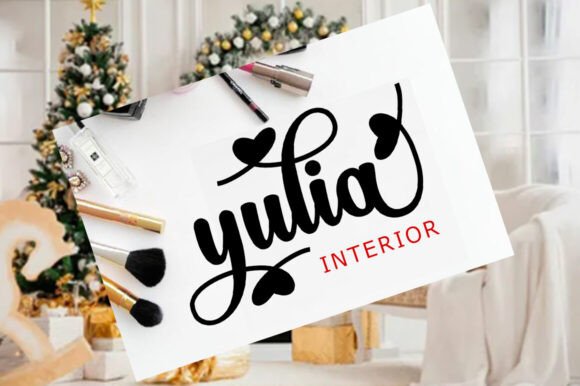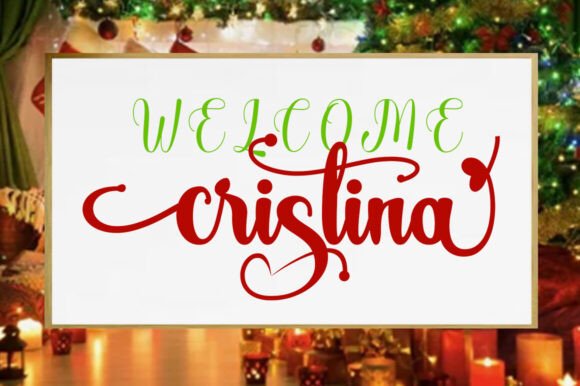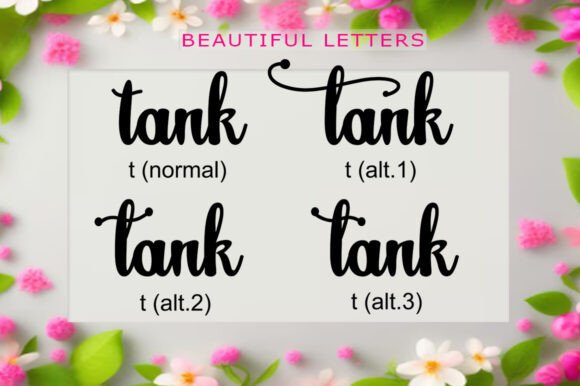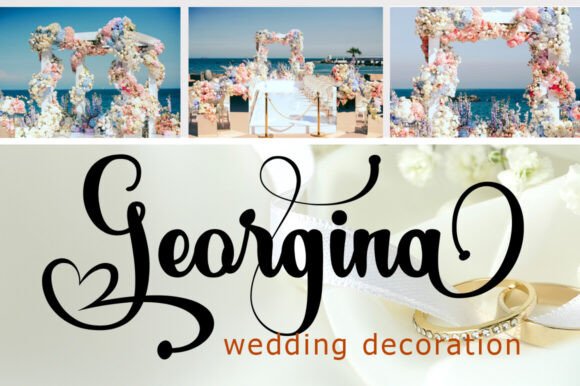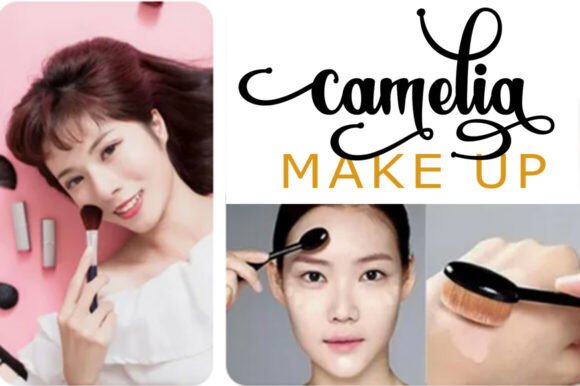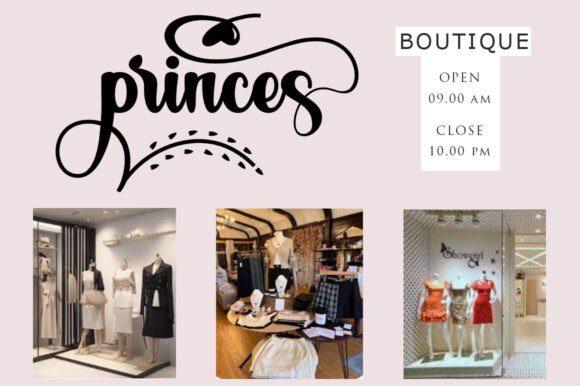
Aprilia Font: A Versatile and Elegant Design Element for Your Projects
When it comes to selecting the perfect font for your design project, the options can be overwhelming. However, if you’re looking for a font that exudes elegance, sophistication, and versatility, look no further than the Aprilia font. This beautifully designed font is perfect for a wide range of applications, from wedding invitations and business cards to billboards and product branding.
What is Aprilia Font?
Aprilia is a meticulously crafted font that boasts a clean and neat design. Its sleek lines and curves make it an excellent choice for designers and crafters seeking a font that can elevate their projects to the next level. Whether you’re working on a wedding invitation, a product brand name, or a business card, Aprilia font is sure to make a lasting impression.
Key Features of Aprilia Font
- Clean and Neat Design: Aprilia font features a clean and neat design that makes it perfect for a wide range of applications.
- Versatility: This font can be used for various purposes, including wedding purposes, shop names, product brand names, business cards, wedding invitation cards, billboards, banners, and more.
- Elegance and Sophistication: Aprilia font exudes elegance and sophistication, making it perfect for high-end designs and projects.
- Readability: The font is highly readable, even at small sizes, making it perfect for use on a variety of materials, from business cards to billboards.
Uses of Aprilia Font
Aprilia font is an incredibly versatile design element that can be used in a wide range of applications. Here are some of the most popular uses of this font:
- Wedding Invitations: Aprilia font is perfect for wedding invitations, adding a touch of elegance and sophistication to your wedding stationery.
- Business Cards: Use Aprilia font to create professional and stylish business cards that make a lasting impression.
- Product Branding: Aprilia font is an excellent choice for product branding, adding a touch of elegance and sophistication to your product packaging and marketing materials.
- Billboards and Banners: The font’s clean design and high readability make it perfect for use on billboards and banners.
- T-Shirt Design: Aprilia font can also be used for writing on t-shirts, adding a touch of style and elegance to your apparel designs.
Tips for Using Aprilia Font
To get the most out of Aprilia font, here are some tips to keep in mind:
- Pair with Other Fonts: Aprilia font pairs well with other fonts, so don’t be afraid to experiment with different font combinations to create a unique look.
- Use for Headings and Titles: Aprilia font is perfect for use as headings and titles, adding a touch of elegance and sophistication to your designs.
- Experiment with Colors: The font’s clean design makes it perfect for use with a wide range of colors, so don’t be afraid to experiment with different color schemes.
In conclusion, Aprilia font is a versatile and elegant design element that can elevate your projects to the next level. Its clean design, versatility, and high readability make it perfect for a wide range of applications, from wedding invitations and business cards to billboards and product branding. Whether you’re a designer or crafter, Aprilia font is an excellent choice for anyone looking to add a touch of sophistication and elegance to their designs.